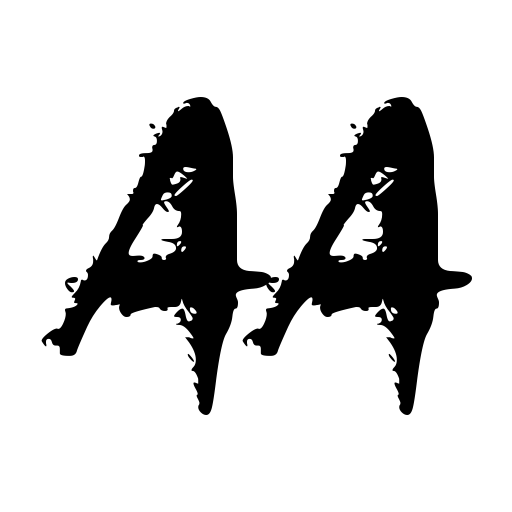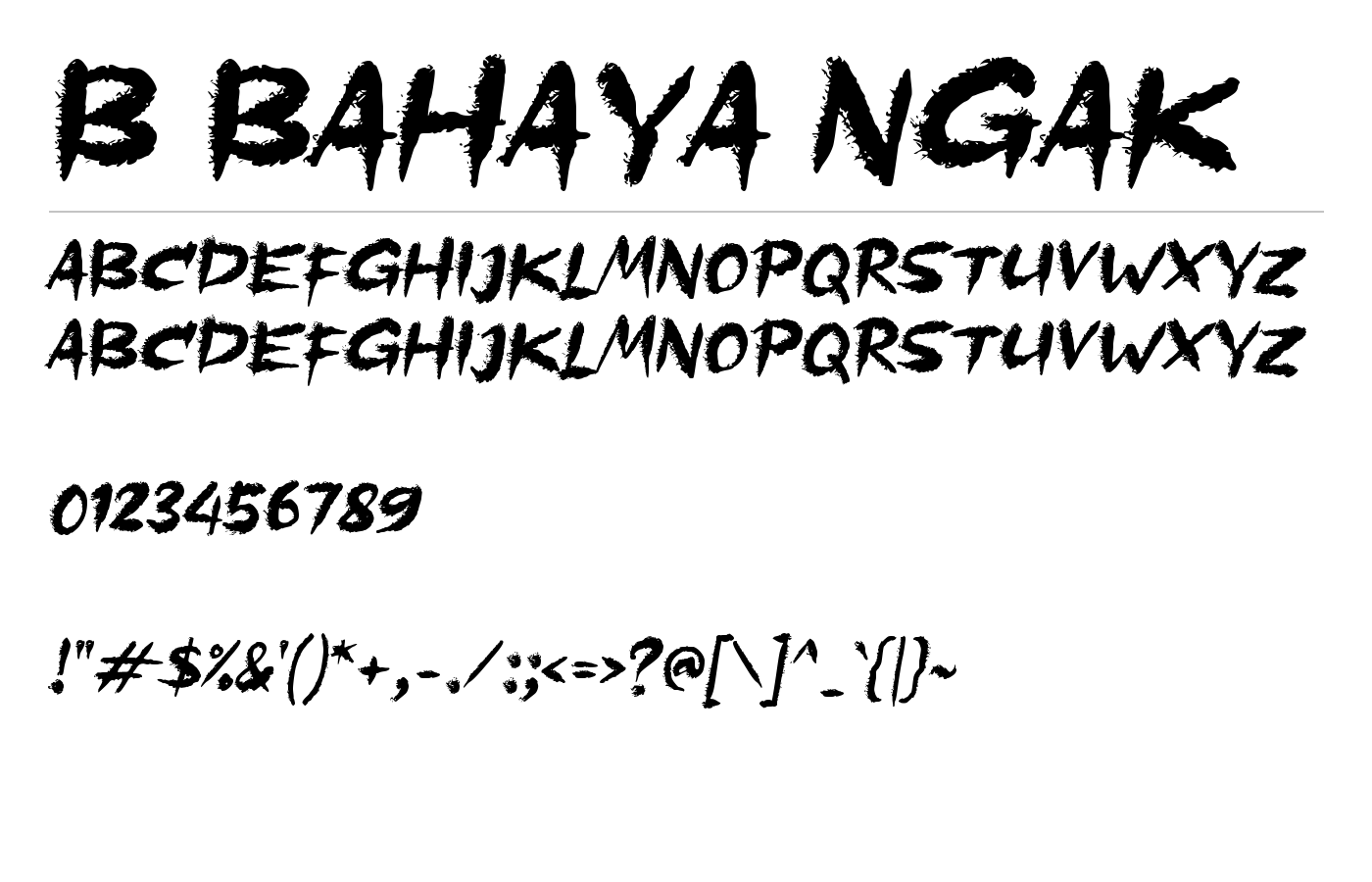
b Bahaya Ngak is a bold, brush-style handwritten font with a textured, rough appearance that conveys energy and a casual, artistic vibe. Its uppercase letterforms are dynamic and irregular, giving a strong and expressive feel, ideal for creative and informal designs. This font works best for eye-catching headlines, posters, and branding that seek a raw, edgy character.
b Bahaya Ngak Font
About b Bahaya Ngak Font